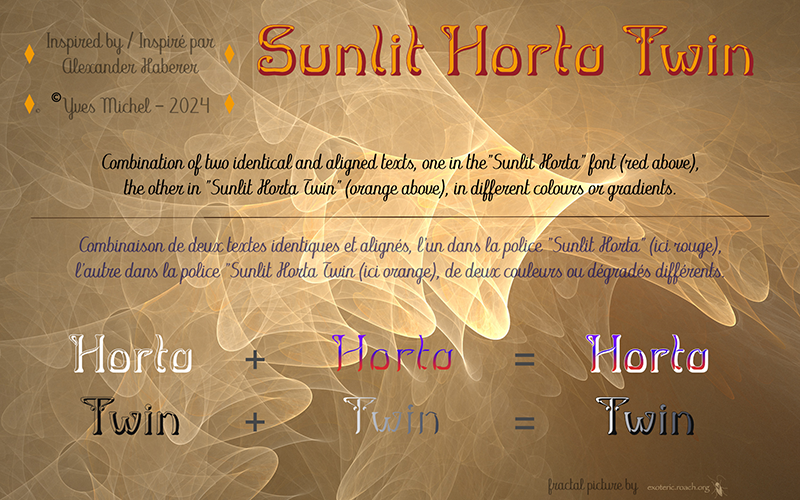
Font name: | Sunlit Horta Twin |
Author: | Yves Michel |
Note by Yves Michel | |
This font consists of the originally empty contours in the "Sunlit Horta" font. In a graphic program, when the same text is typeset in two text frames at the same size, one in the normal font, one in the shadow font, and the frames are exactly overlaid, you get the combined result of letters and shadows. Fill the two frames with different colours or gradients _____________ Cette fonte reprend les contours originellement vides de la police "Sunlit Horta". Dans un programme graphique, si le m�me texte est inclus dans deux zones de texte de m�mes dimensions et exactement superpos�es, l'un dans la police normale, l'autre dans la police Twin, le r�sultat est une combinaison des deux. Remplissez les deux cadres de couleurs ou d�grad�s diff�rents. |